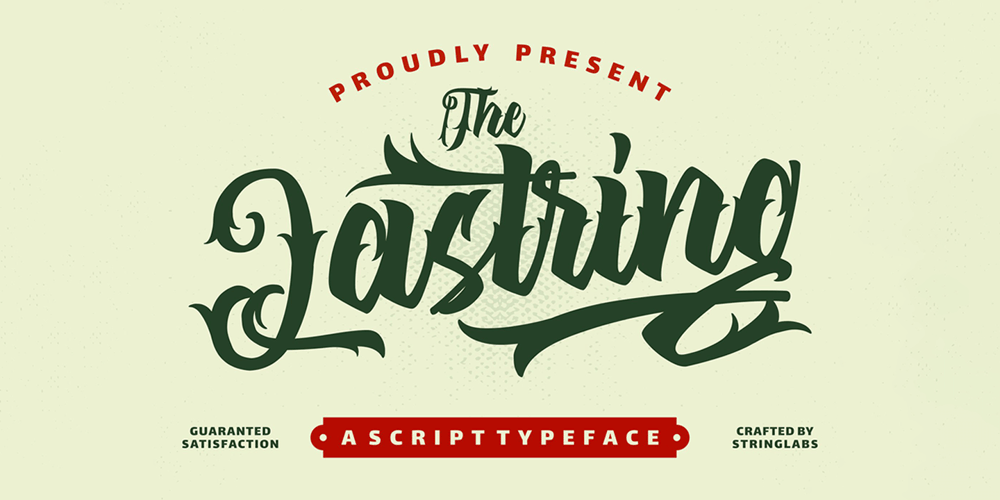
The Lastring Font Family was designed by Virgiawan Listanto and published by Stringlabs Creative Studio. The Lastring contains 1 styles and family package options. The Lastring is a decorative font. It is perfect for tattoos design and has a gothic and vintage style that will turn any project in a piece of art!